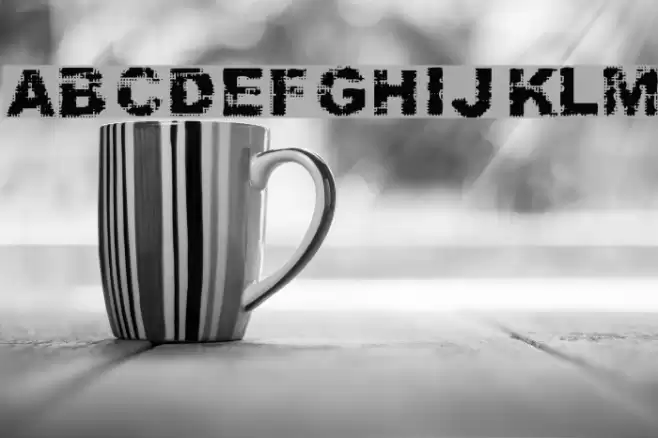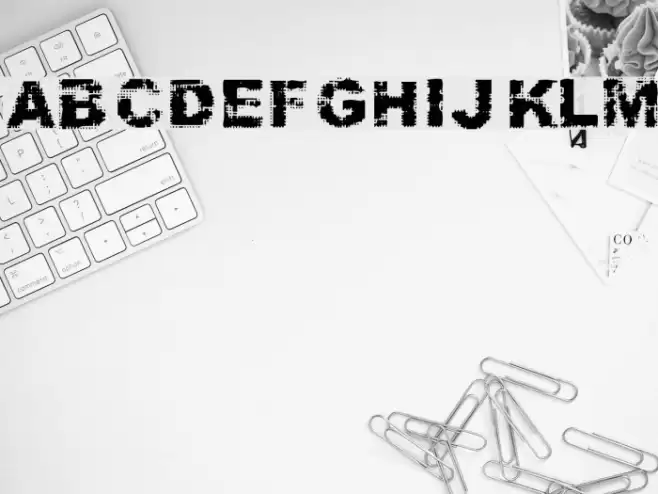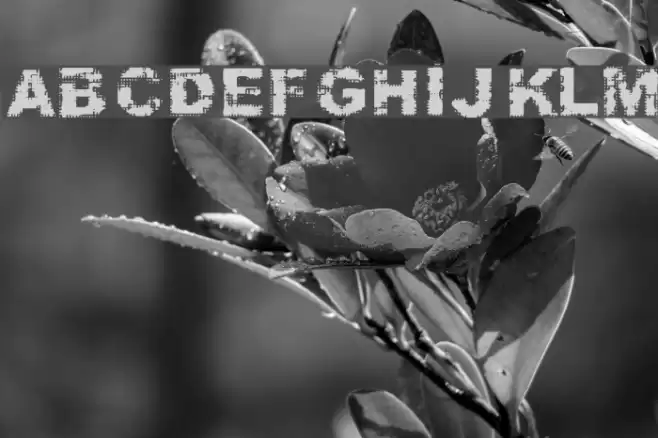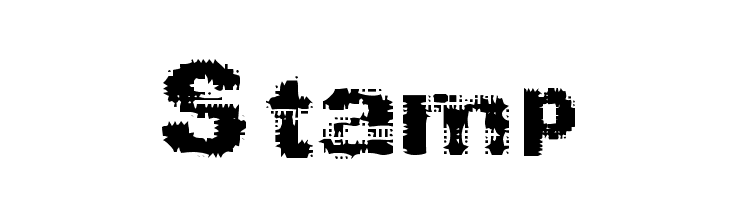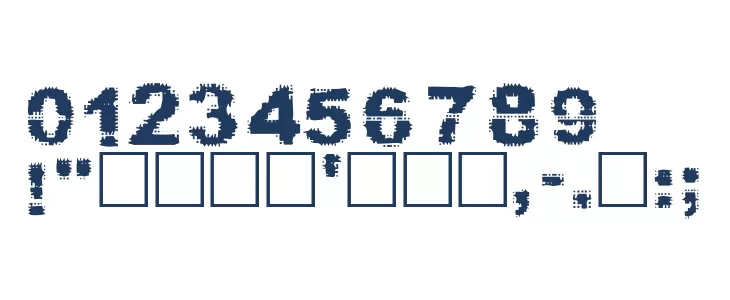
Stamp Font
Stamp Description
This font features a distressed, grunge style that mimics the appearance of a worn-out stamp. The characters have a bold, impactful presence with irregular edges and a textured surface, giving them a rugged and vintage feel. The uppercase and lowercase letters maintain a consistent design, while the numerals and special characters follow the same distressed aesthetic. This font is ideal for projects that require a raw, industrial look, such as posters, album covers, or branding for edgy products.
A distressed, grunge-style font with a bold, rugged appearance from Broken fonts.
- Proposed Projects: Ideal for posters, album covers, branding for edgy products, and any design needing a vintage, industrial look.
- Overall Style: Vintage